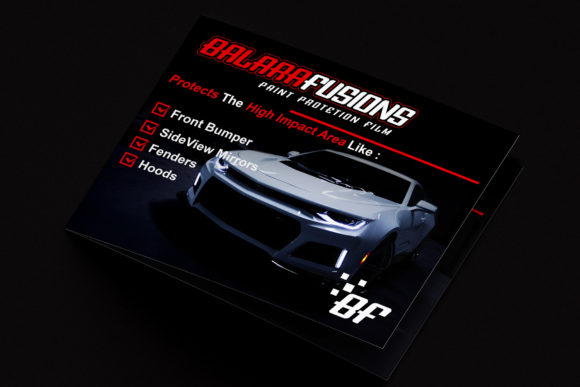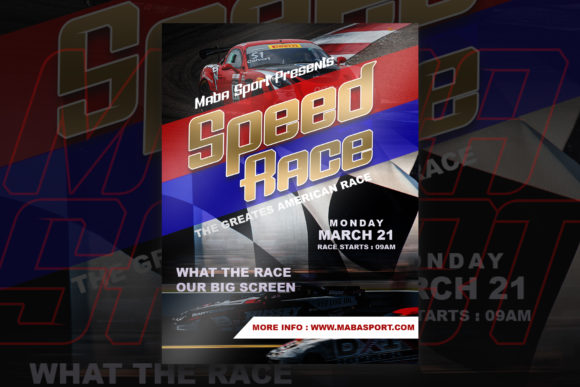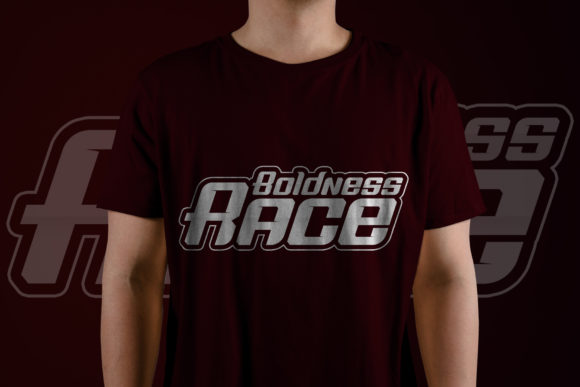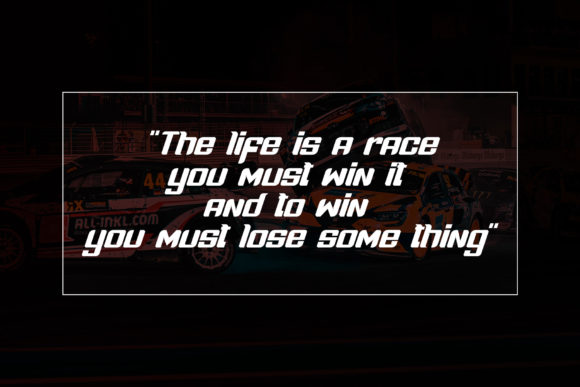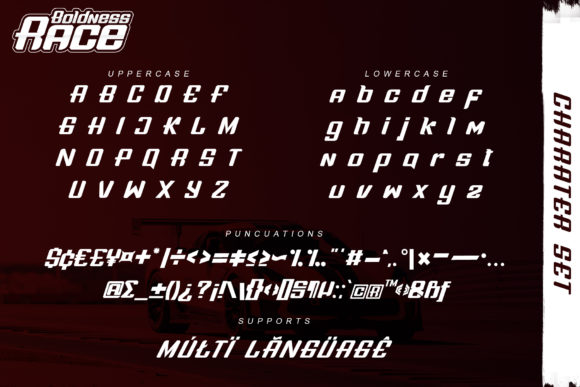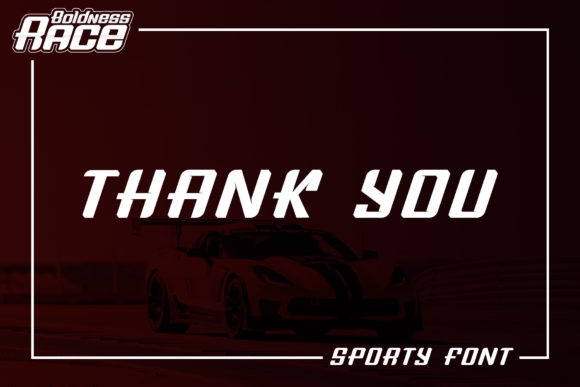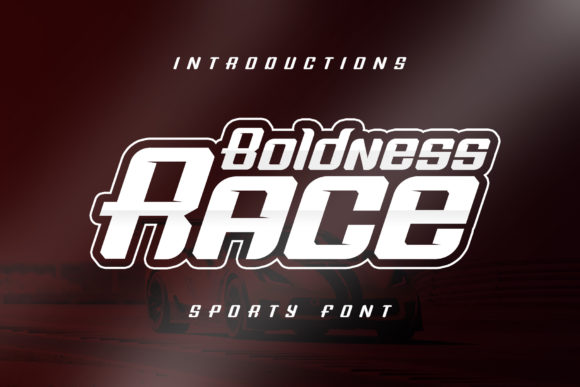
Unleash Your Creativity with Boldness Race Font: The Ultimate Sporty Display Font
Are you tired of using the same old fonts for your designs? Do you want to add a touch of fun and assertiveness to your projects? Look no further than Boldness Race Font, a cool and sporty display font that’s perfect for informal and casual design ideas. In this article, we’ll dive into the world of Boldness Race Font and explore its features, benefits, and uses.
What is Boldness Race Font?
Boldness Race Font is a unique and stylish font that’s designed to make a statement. Its fun and assertive style is perfect for designers and crafters who want to add a touch of personality to their projects. Whether you’re working on a logo, poster, or social media graphic, Boldness Race Font is sure to grab attention and leave a lasting impression.
Key Features of Boldness Race Font
- Fun and Assertive Style: Boldness Race Font has a bold and confident style that’s perfect for making a statement.
- Sporty and Cool: The font has a sporty and cool vibe that’s perfect for designs that require a bit of edge.
- Informal and Casual: Boldness Race Font is perfect for informal and casual design ideas, such as social media graphics, posters, and flyers.
- Easy to Read: Despite its bold style, Boldness Race Font is easy to read, making it perfect for headlines and titles.
Benefits of Using Boldness Race Font
So why should you use Boldness Race Font for your designs? Here are just a few benefits:
- Adds Personality to Your Designs: Boldness Race Font adds a touch of personality and style to your designs, setting them apart from the crowd.
- Perfect for Sports and Fitness Brands: The font’s sporty style makes it perfect for sports and fitness brands, as well as designs that require a bit of edge.
- Versatile: Boldness Race Font can be used for a variety of design projects, from logos and posters to social media graphics and flyers.
- Easy to Pair with Other Fonts: The font’s bold style makes it easy to pair with other fonts, allowing you to create unique and interesting typography combinations.
Using Boldness Race Font for Your Designs
So how can you use Boldness Race Font for your designs? Here are a few ideas:
- Logos and Branding: Use Boldness Race Font to create a bold and memorable logo for your brand.
- Posters and Flyers: The font’s bold style makes it perfect for posters and flyers that require attention-grabbing headlines.
- Social Media Graphics: Use Boldness Race Font to create eye-catching social media graphics that stand out from the crowd.
- T-Shirts and Merchandise: The font’s sporty style makes it perfect for t-shirts and merchandise that require a bit of edge.
Tips and Tricks for Using Boldness Race Font
Here are a few tips and tricks for using Boldness Race Font:
- Use it Sparingly: While Boldness Race Font is bold and attention-grabbing, it can be overwhelming if used too much. Use it sparingly to create emphasis and add personality to your designs.
- Pair it with Other Fonts: Don’t be afraid to pair Boldness Race Font with other fonts to create interesting typography combinations.
- Experiment with Colors: The font’s bold style makes it perfect for experimenting with different colors and gradients.
In conclusion, Boldness Race Font is a cool and fun sporty display font that’s perfect for informal and casual design ideas. Its fun and assertive style makes it perfect for designers and crafters who want to add a touch of personality to their projects. With its bold and attention-grabbing style, Boldness Race Font is sure to make a statement and leave a lasting impression.